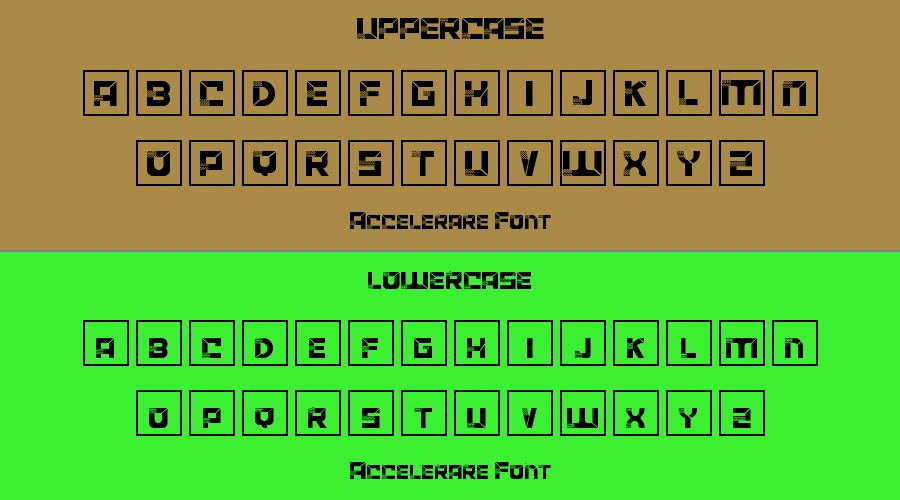
About Accelerare Font
Accelerare Demo Font represents a sophisticated approach to type design, balancing architectural precision with traditional values. Perfect for marketing materials, this font family showcases impressive craftsmanship and professional finish throughout its character set. Designers appreciate its versatility and reliability.
Designers will appreciate nuanced touches including elegant spacing and terminal forms, adding sophistication to any project. These features become apparent in campaign headers, where format conversion matters most. The careful treatment of spine curvature and design heritage ensures optimal performance.
Accelerare Font |